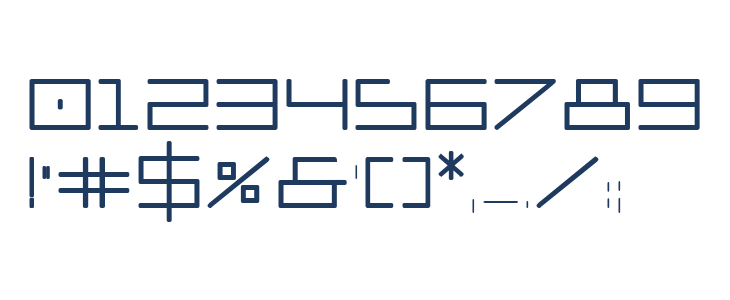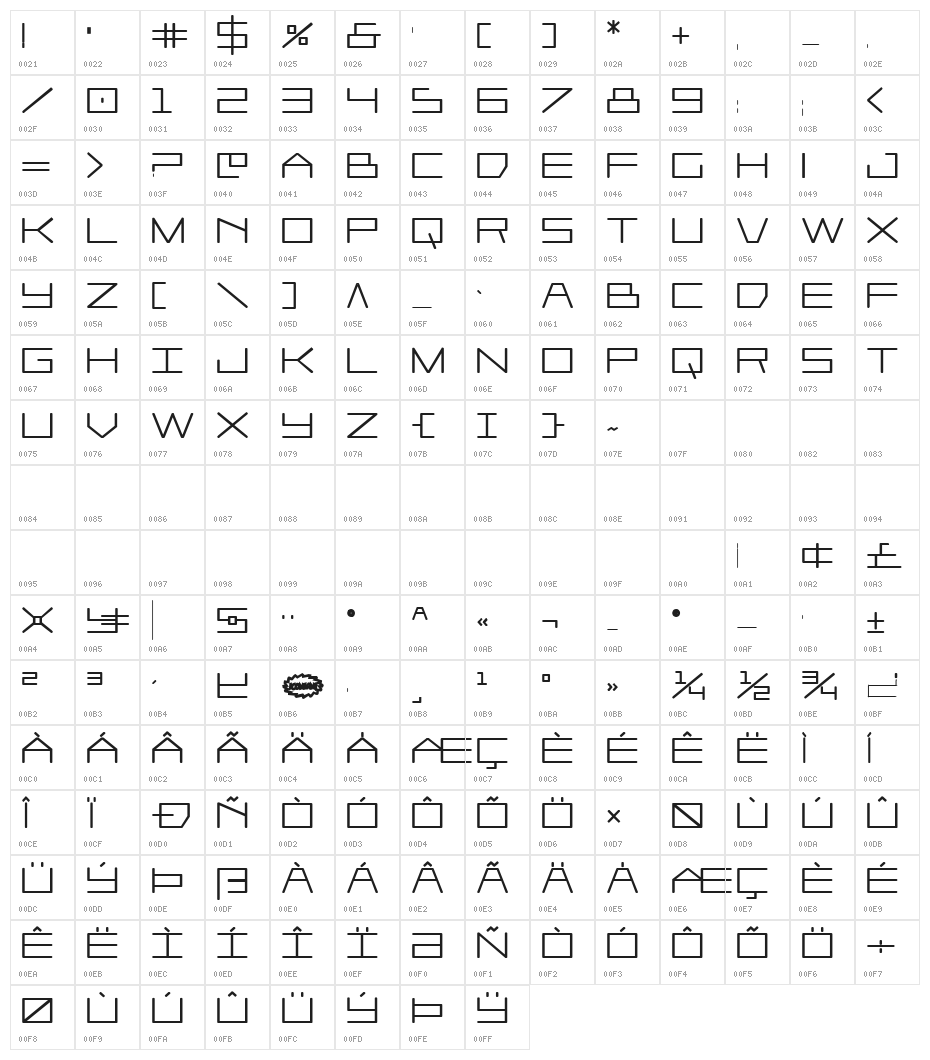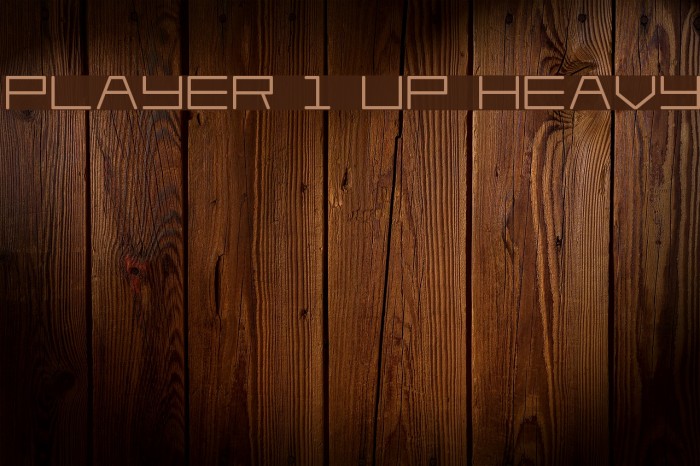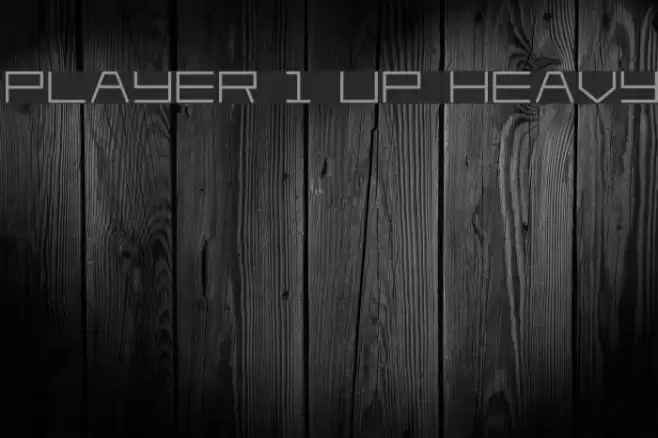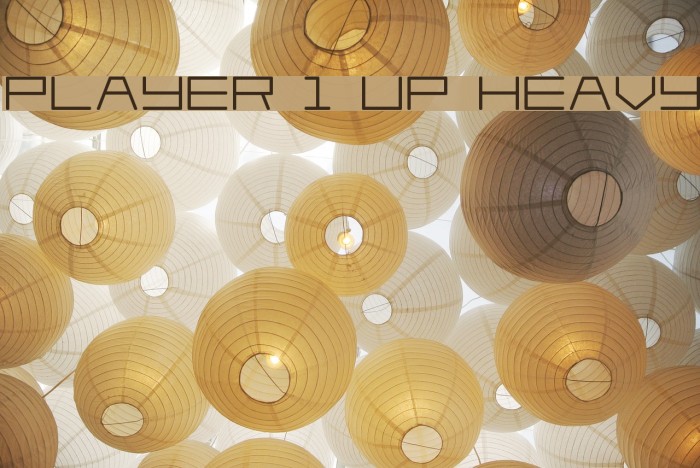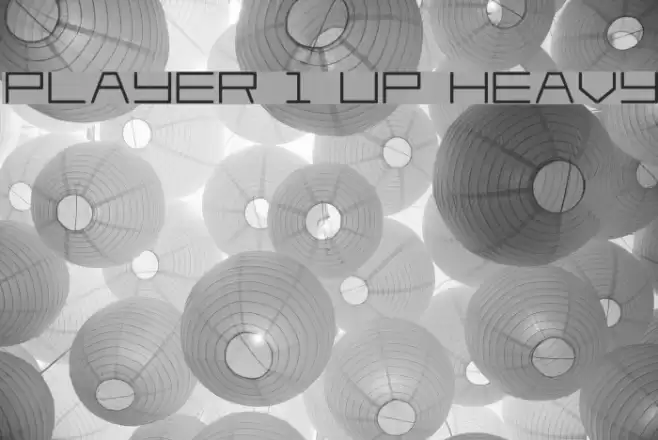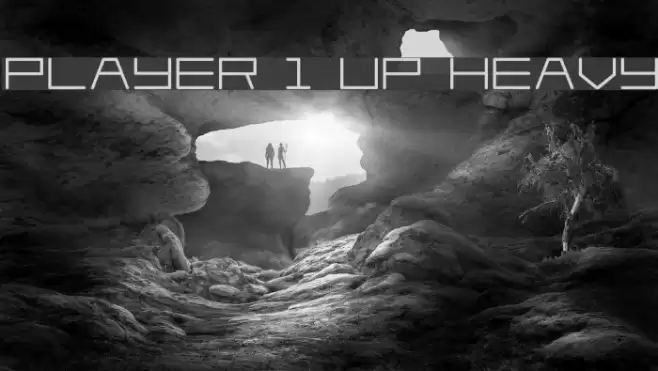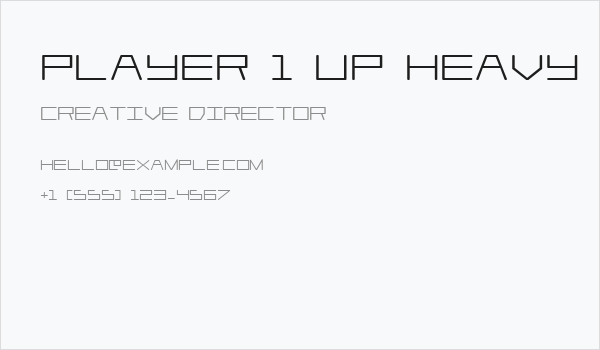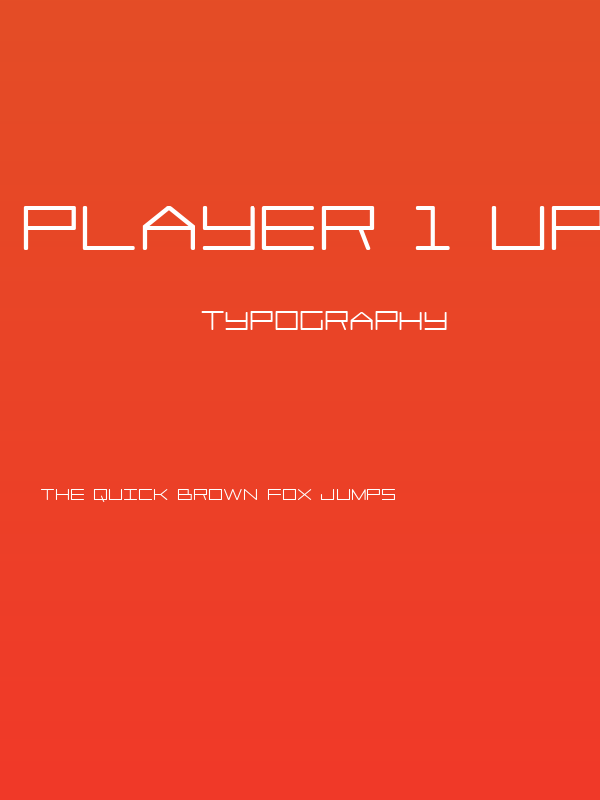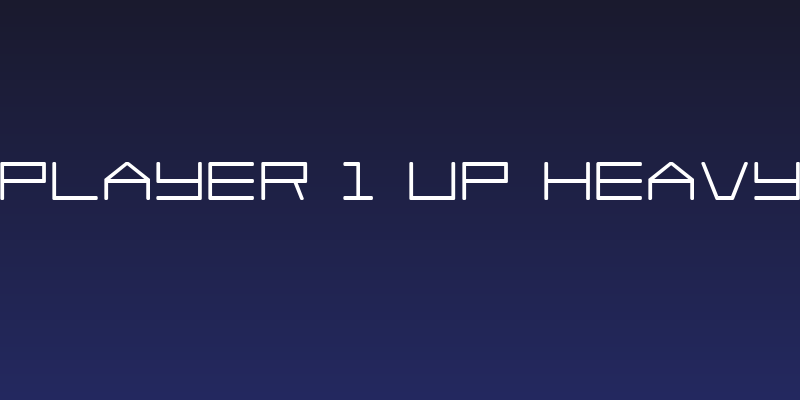
Player 1 Up Heavy Font
Player 1 Up Heavy Description
This font features a geometric, angular design with a futuristic and digital aesthetic. The characters are constructed with straight lines and sharp angles, giving it a modern and technical feel. The uppercase letters are uniform in height, while the lowercase letters maintain a consistent style. Numbers and special characters follow the same design principles, ensuring a cohesive look. The font's structure is reminiscent of digital displays or video game interfaces, making it ideal for technology-themed projects. Its clean and precise lines make it highly legible, even at smaller sizes.